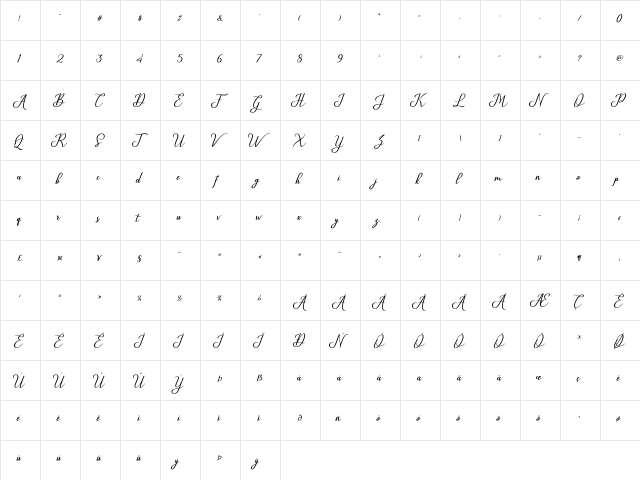
Glossy Regular Font Preview
Glossy Regular
Glossy Regular Font Details
| Foundry | Wandani Creative |
| Designer | Rizaldi Wandani |
Design Context for Glossy Typeface
Glossy is a composed and adaptable typeface that performs quietly and consistently across a wide range of design contexts.